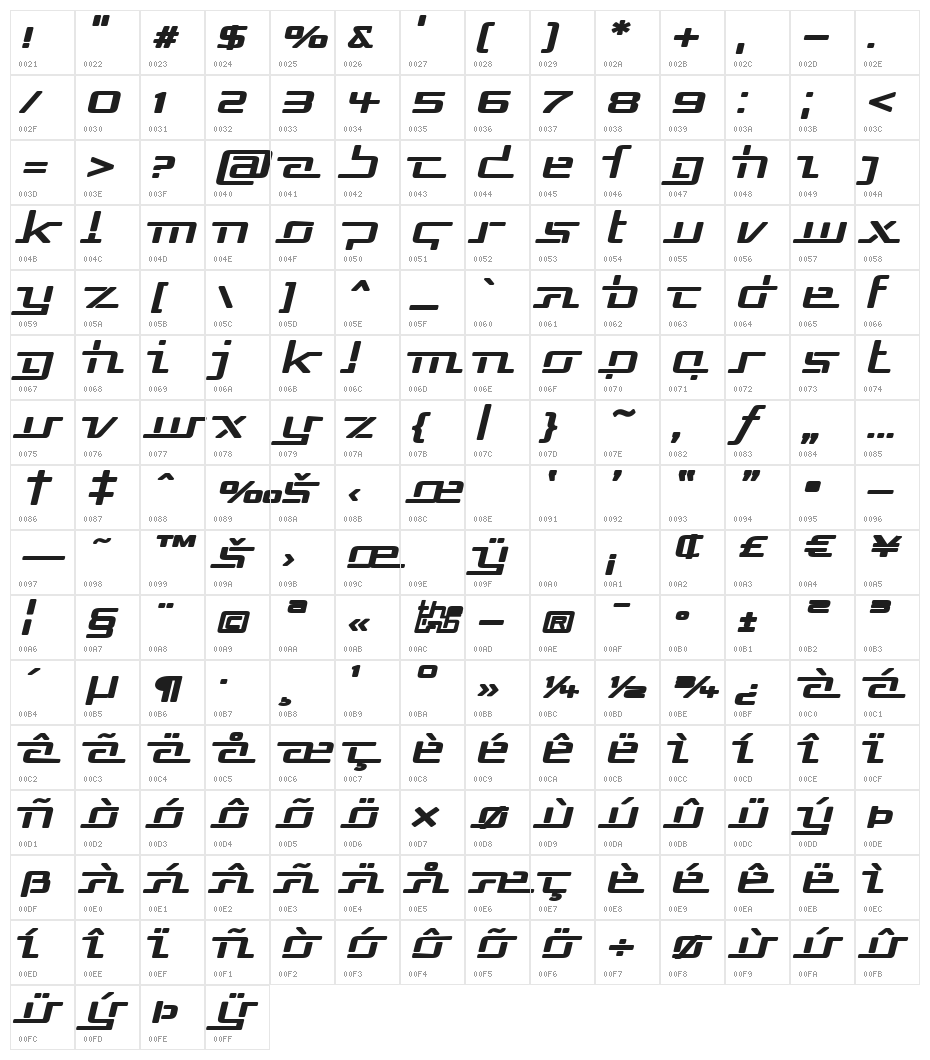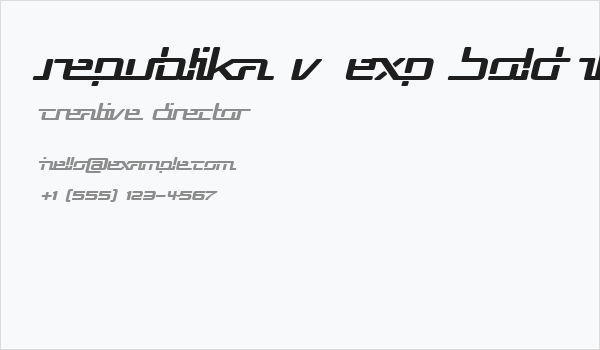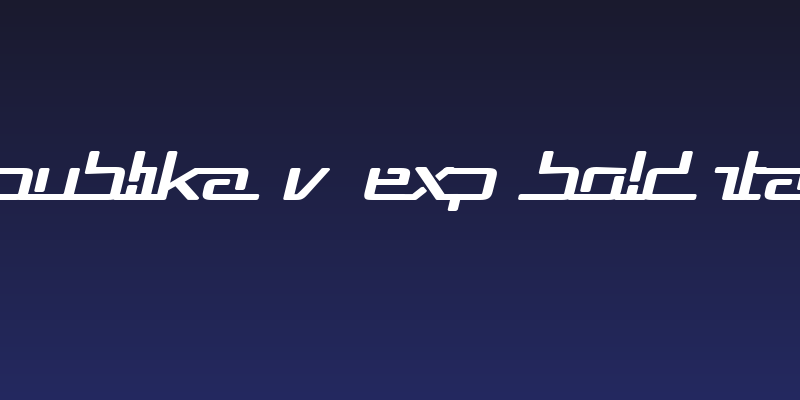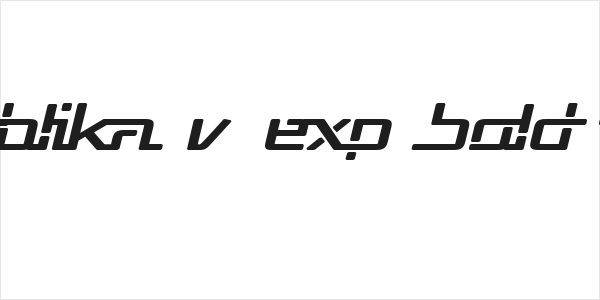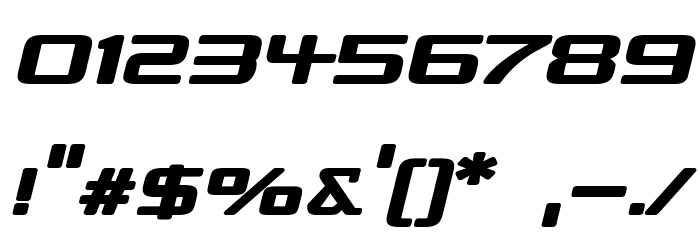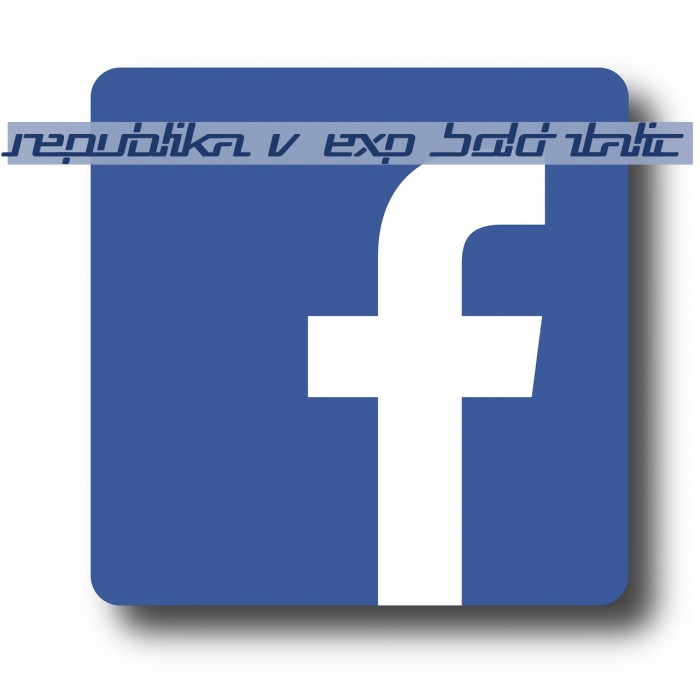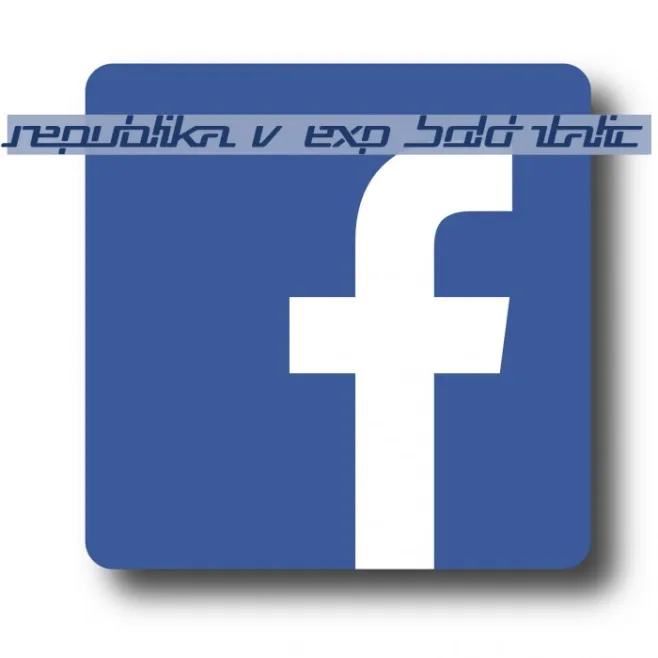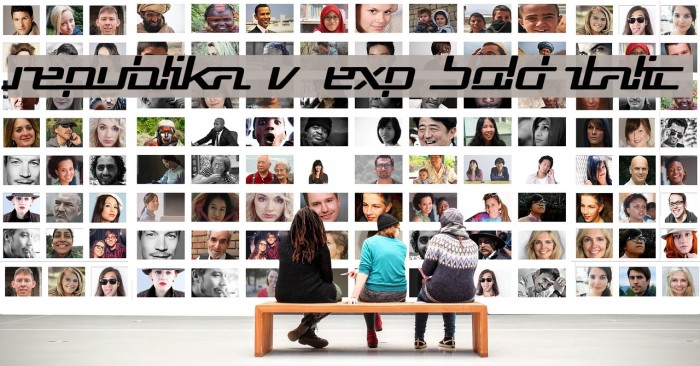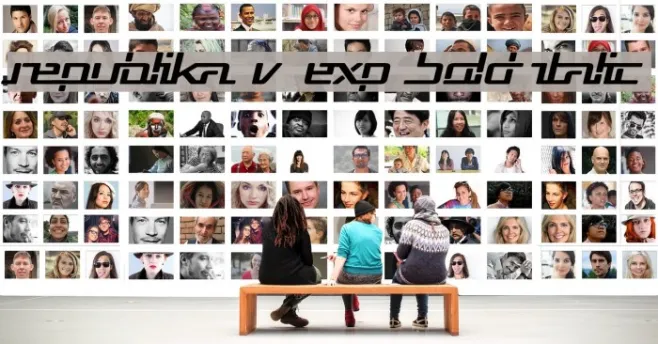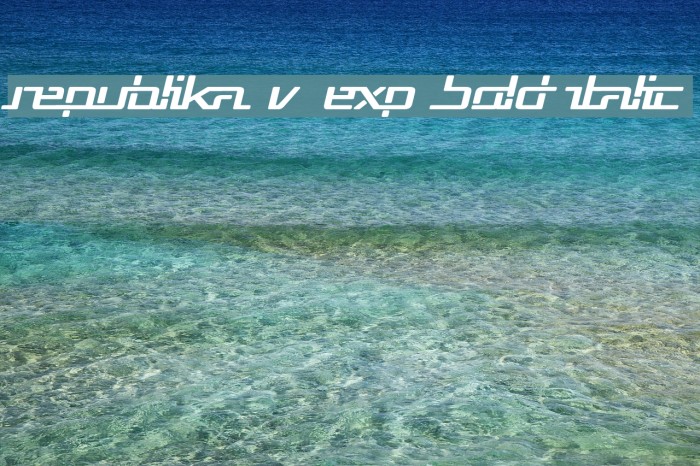
Republika V Exp Bold Italic Font
Republika V Exp Bold Italic Description
This font features a futuristic and dynamic design with a strong emphasis on angular lines and geometric shapes. The characters are interconnected with a sleek, continuous flow, giving it a sense of motion and speed. The bold weight and italic slant enhance its modern and edgy appearance, making it stand out in any design. The uppercase and lowercase letters maintain a consistent style, while the numerals and special characters complement the overall aesthetic. Its unique style is ideal for projects that require a contemporary and tech-savvy look.
| Proposed Projects | Ideal for technology branding, video game titles, sci-fi movie posters, and modern advertising. |